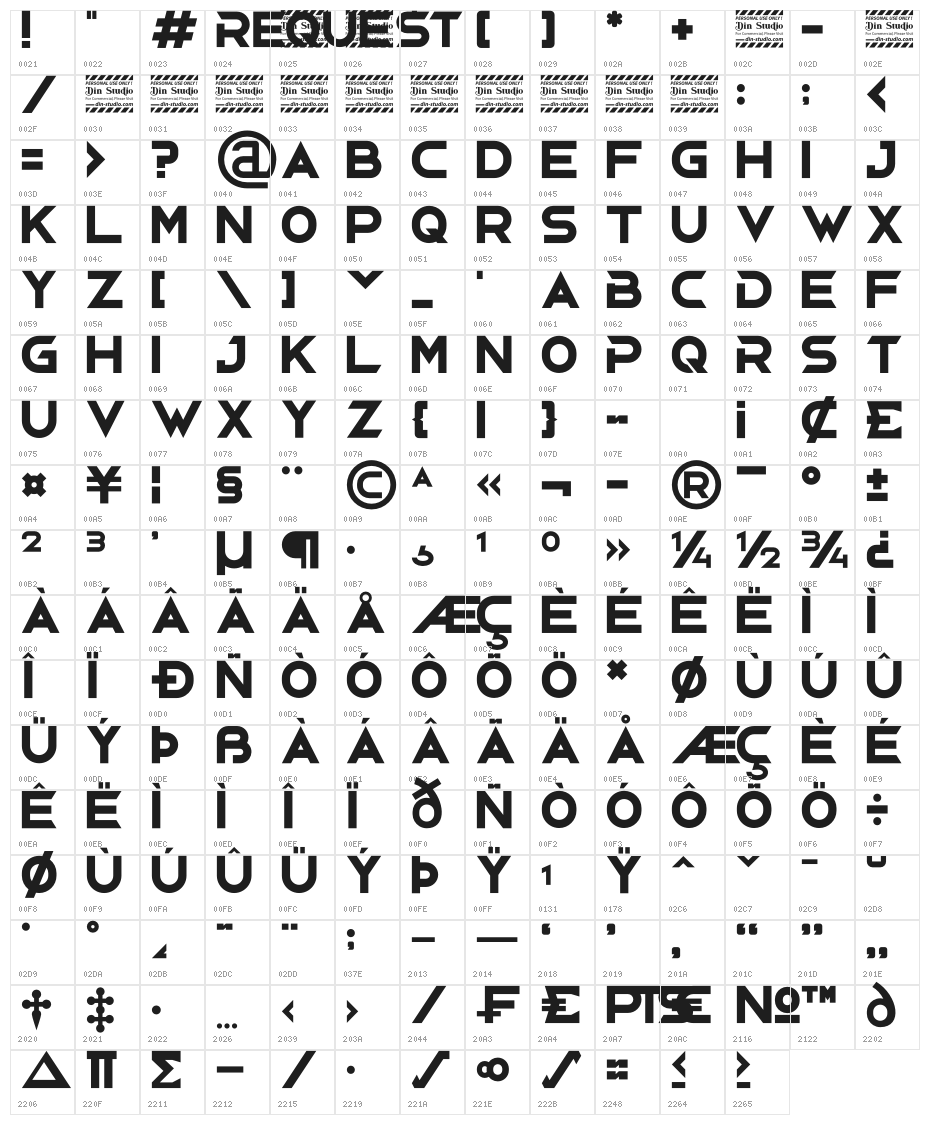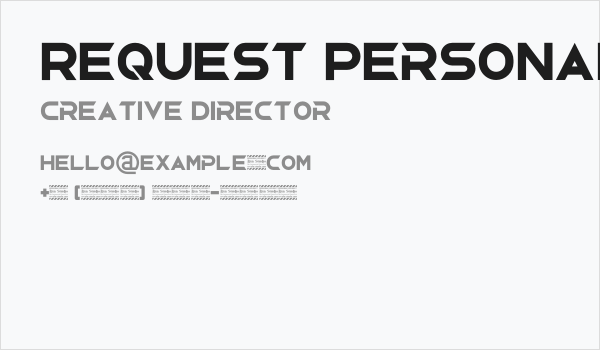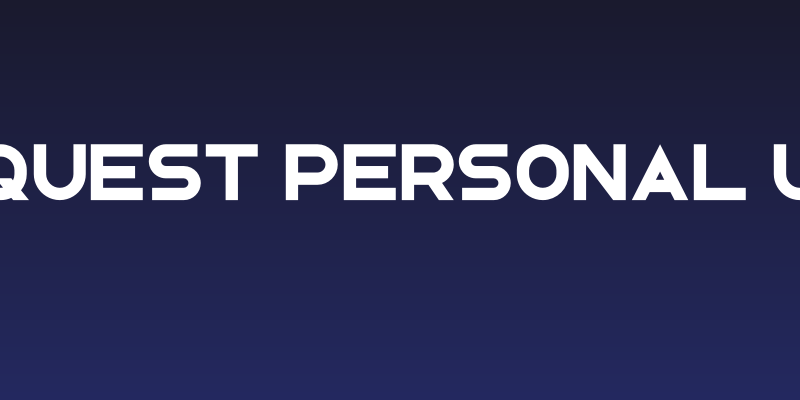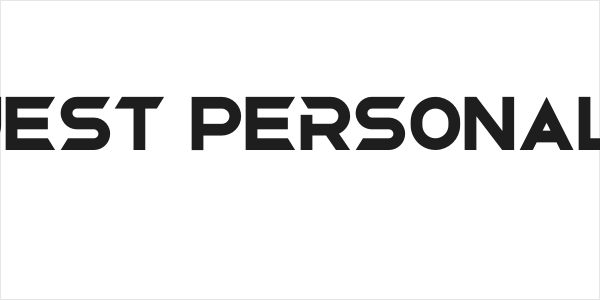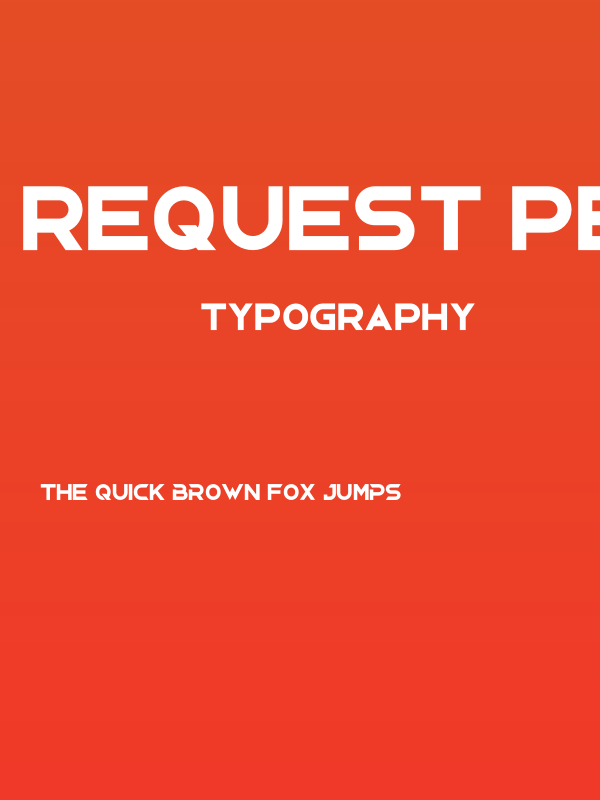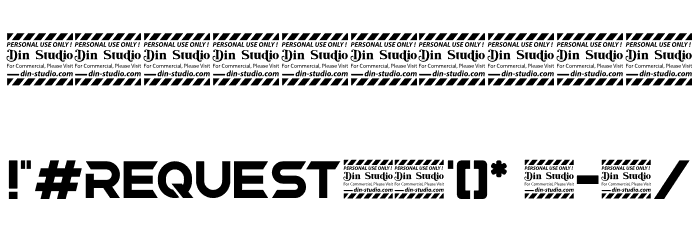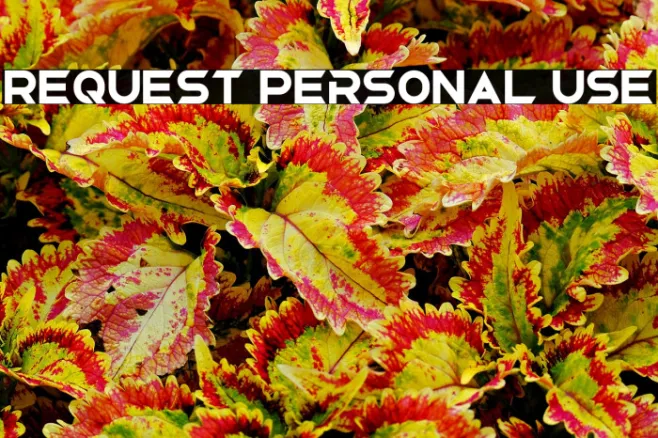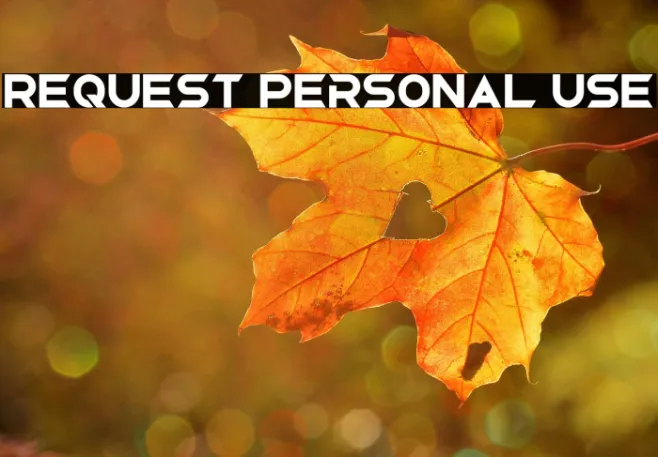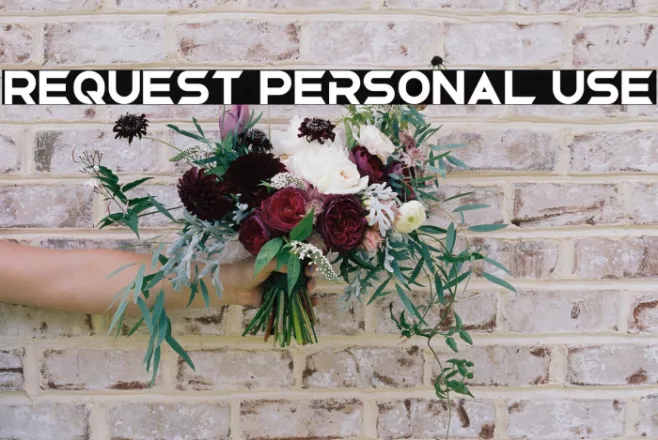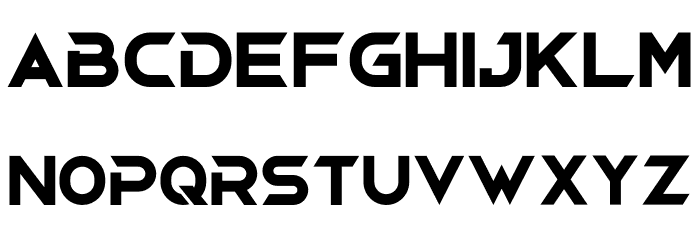
Request Personal Use Font
Request Personal Use Description
This font features a bold and geometric design with sharp, angular edges and a futuristic aesthetic. The uppercase letters are uniform in height, creating a cohesive and structured appearance. The characters are wide and have a strong presence, making them ideal for impactful headlines or titles. The font includes a full set of uppercase letters, numbers, and a selection of special characters, all maintaining the same bold and angular style. The design is modern and sleek, suitable for projects that require a contemporary and assertive look.